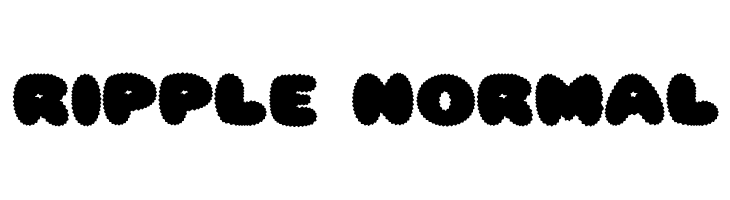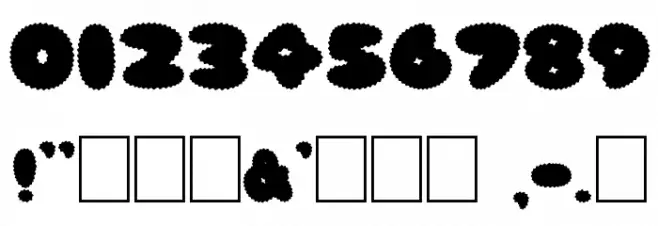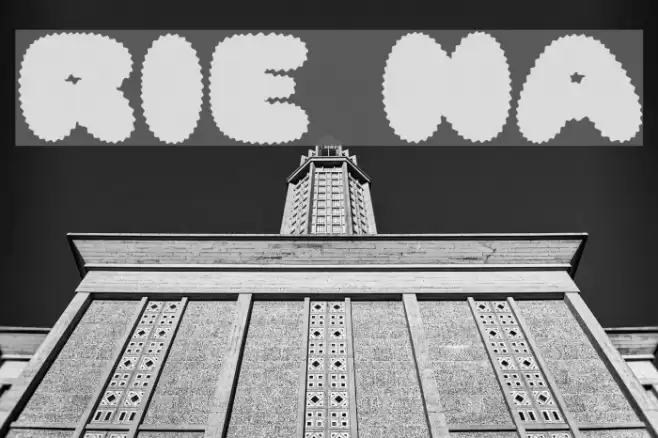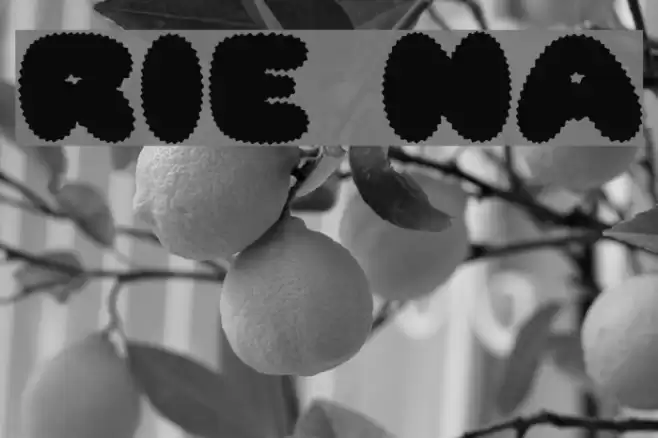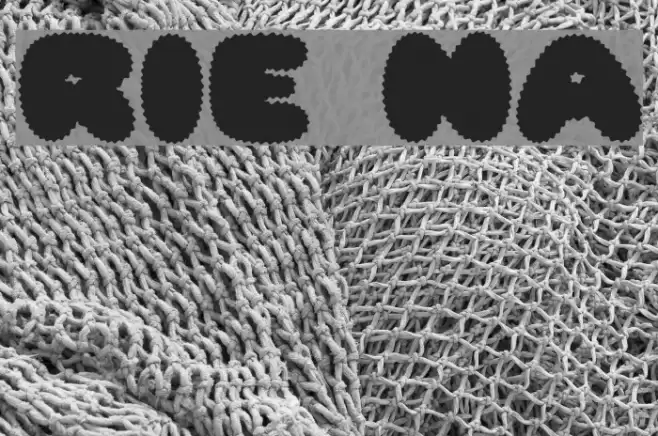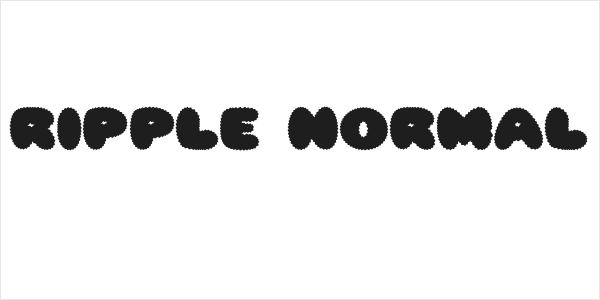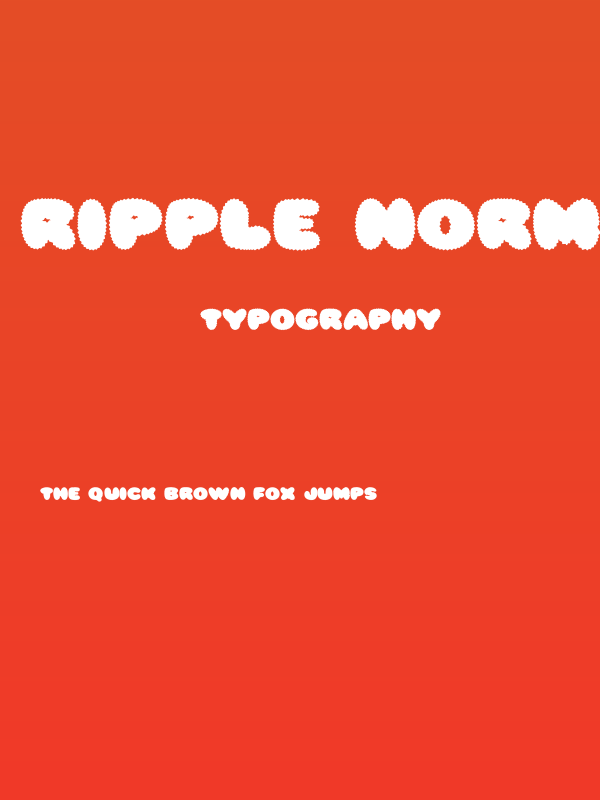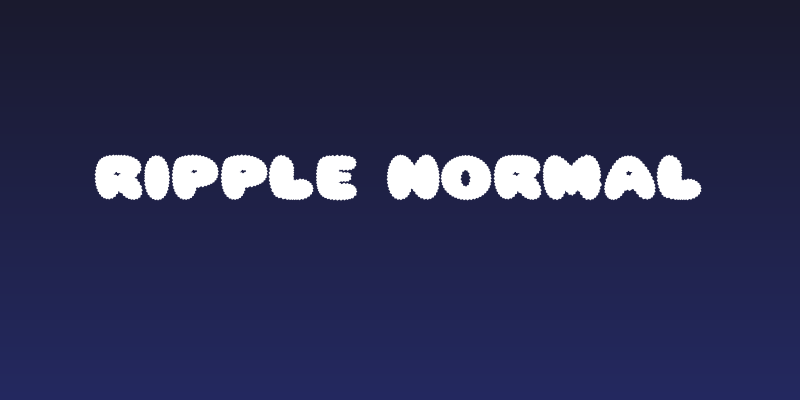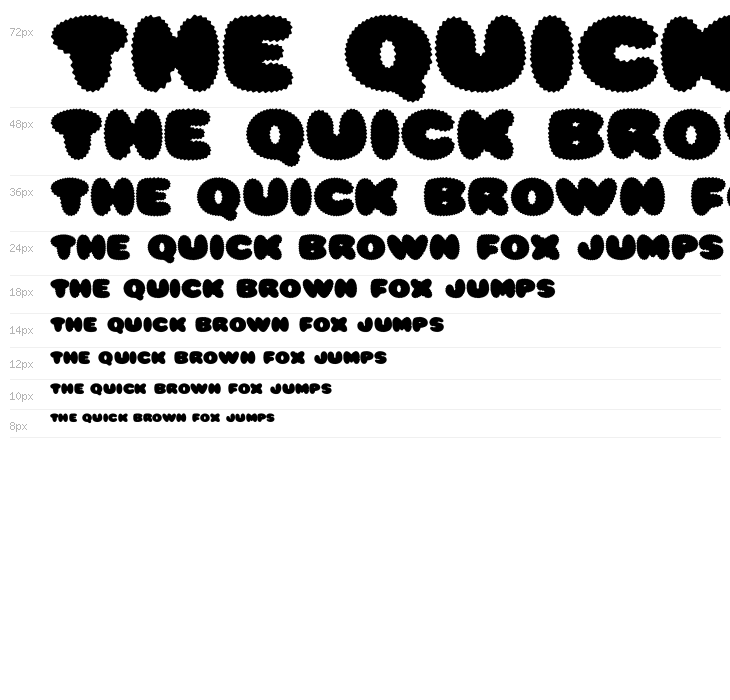
Ripple Normal Font
Ripple Normal Description
This font features a playful and bold design with a unique ripple effect around each character. The letters are rounded and filled, creating a bubbly and dynamic appearance. The style is consistent across uppercase, lowercase, and numeral characters, maintaining a cohesive look. The special characters also follow this design, ensuring uniformity throughout. This font's distinctive ripple texture adds a sense of movement and fun, making it stand out in any design project.